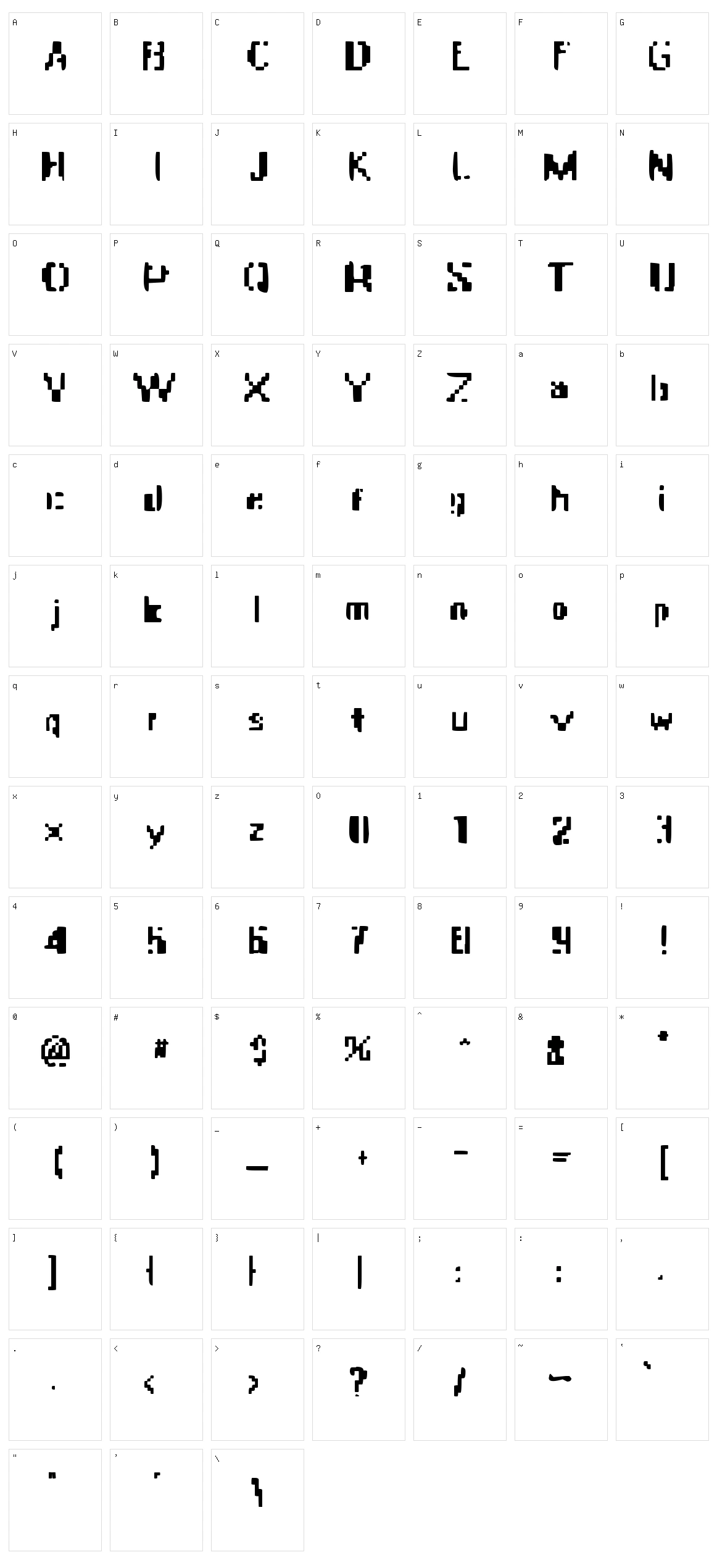
The free font Apocalypse Fax is carefully designed by Kirk Shelton, showcasing a thoughtful balance of creativity and usability and falls under the Destroy font style. When you download the ZIP file, it contains only 11.52 KB of font files, making it lightweight and quick to download. Please review the license details below to understand permitted usage and distribution rights. If license information is not available, we recommend using this font for personal projects only or contacting the author directly for commercial usage permissions.
Apocalypse Fax TrueType Font By Kirk Shelton.